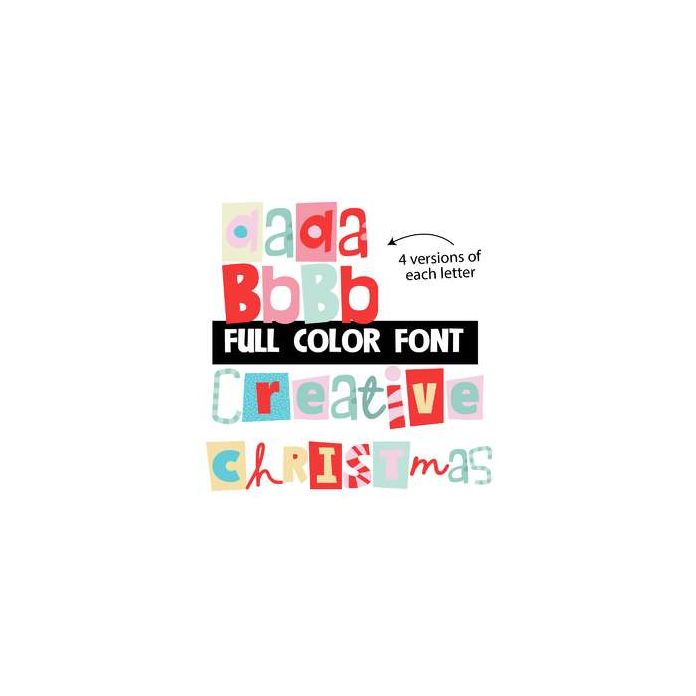
This fun, candy-colored font features a pastel Christmas palette. There is a second upper and lower alt case you can access through your system's character map. This font works best for titles, displays, posters and more. Please note color fonts will show as black in non compatible programs. This font type is compatible with Silhouette Studio.